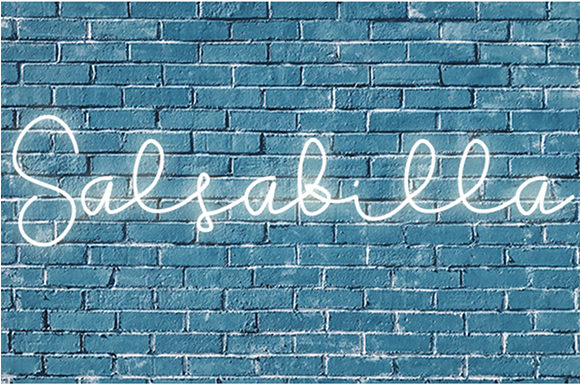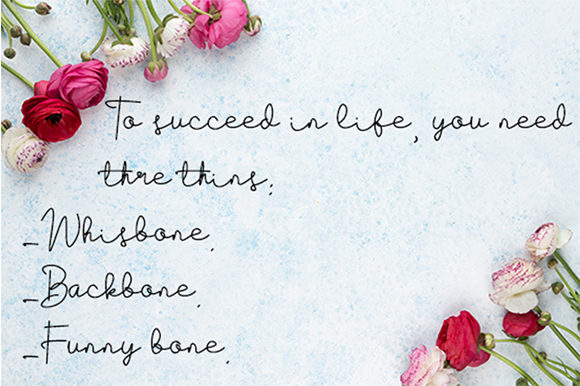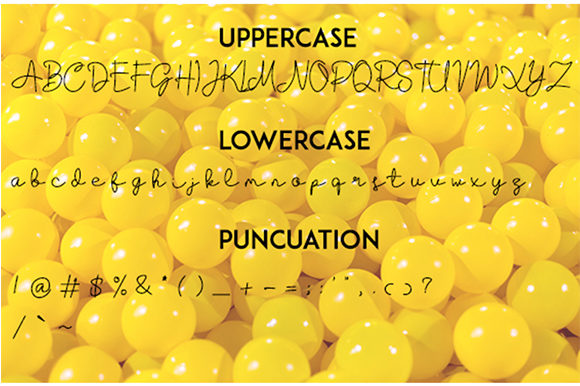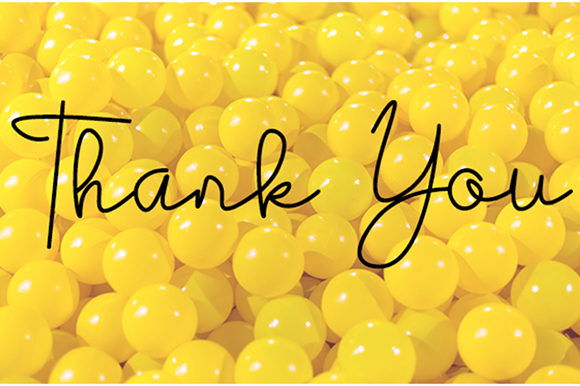
The Gluttony Font: A Bold and Beautiful Handwritten Style
I’ll never forget the design project that led me to discover the Gluttony font. I was working on a branding campaign for a trendy new restaurant, and I needed a font that would add a touch of personality to their menu and marketing materials. After hours of scrolling through font libraries and trying out different styles, I stumbled upon Gluttony – and it was love at first sight! 💕
This beautiful handwritten font has a unique style that’s both elegant and bold. It’s perfect for designers, crafters, and creative hobbyists who want to add a touch of sophistication to their projects. In this article, I’ll share my honest review of Gluttony, provide a practical guide on how to use it, and explore some similar fonts and alternatives.
My Honest Review of Gluttony
- 💥 **Unique style**: Gluttony has a distinctive handwritten look that’s both elegant and bold.
- ✅ **Versatile**: This font can be used for a wide range of design projects, from branding and advertising to crafting and DIY projects.
- 🎨 **High-quality**: The font is beautifully crafted with attention to detail, making it perfect for high-end designs.
- ⚠️ **Limited availability**: Gluttony might not be as widely available as some other fonts, but it’s worth searching for.
- 🤔 **Some letters may require adjustment**: Depending on the design, some letters might need adjusting to get the perfect fit.
Gluttony was designed with the intention of creating a bold, yet elegant font that’s perfect for designs that require a touch of personality. The designer wanted to create a font that’s both beautiful and versatile, making it perfect for a wide range of design projects.
| Font Name | Gluttony Font |
| Author | Justlett |
Q: What type of designs is Gluttony best suited for?
A: Gluttony is perfect for designs that require a bold, yet elegant touch, such as branding, advertising, and creative projects.
Q: Is Gluttony a difficult font to use?
A: No, Gluttony is a relatively easy font to use, and its OpenType features make it easy to add personality to your designs.